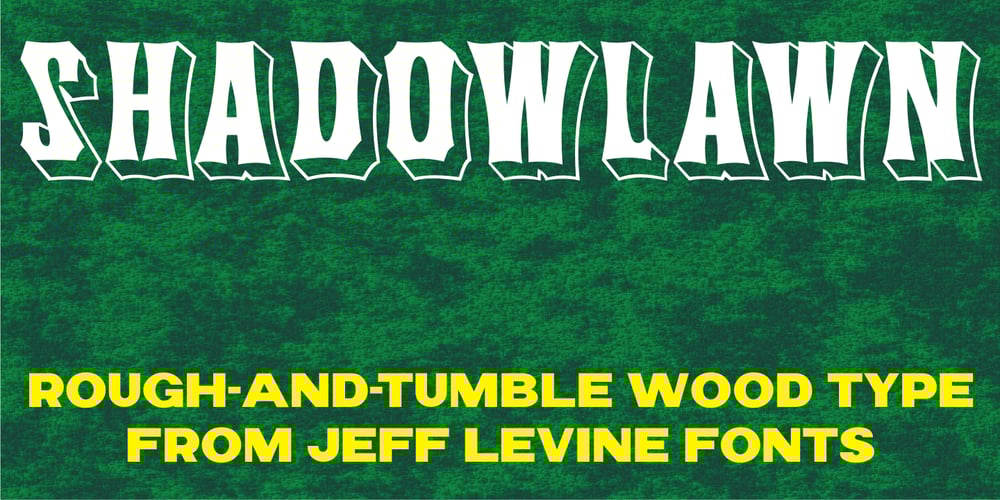
Shadowlawn JNL Font Family was designed by Jeff Levine and published by Jeff Levine. Shadowlawn JNL contains 1 styles and family package options. If you like a rough-hewn, rugged and vintage typeface, then Shadowlawn JNL will certainly please you. Re-drawn from vintage examples of a hand-cut wood type, the rustic charm of this typeface brings a reminiscence of Old West themes.